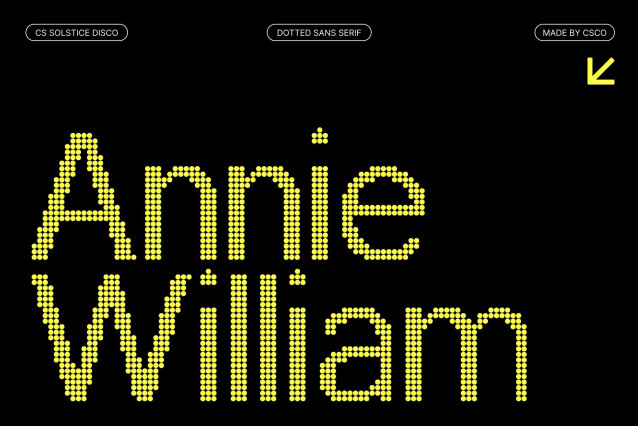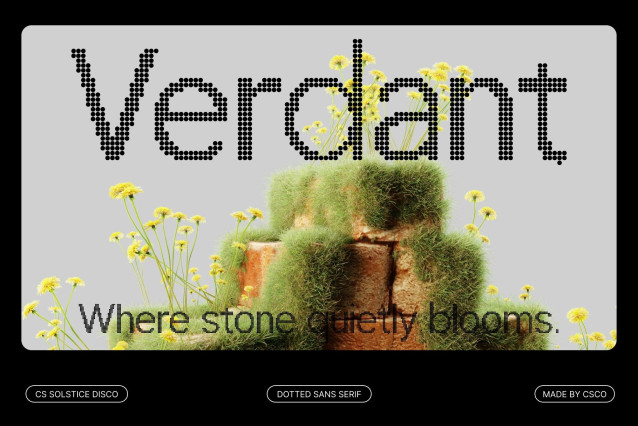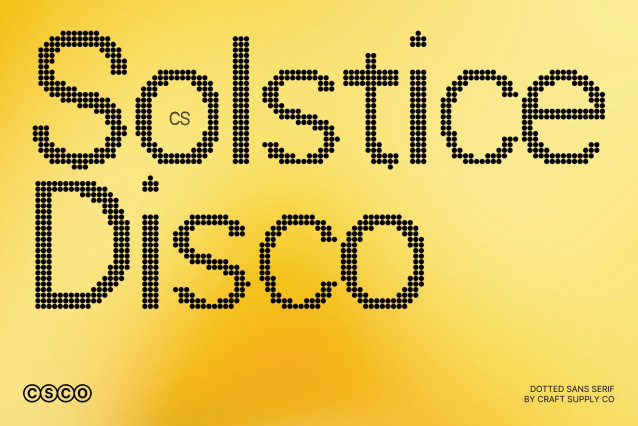
CS Solstice Disco – Dot Sans Serif with Confident Party Energy
Clean Geometry Meets Disco Sparkle
This font transforms the confident clarity of a modern sans serif into a lively dot-style display font. Built from structured geometric forms and reimagined with rhythmic dotted construction, it reflects the energy, glamour, and sparkle of a vibrant dance floor.
Structured Simplicity with Playful Rhythm
The font keeps its strong proportions and balanced shapes, but replaces solid strokes with a grid of evenly spaced dots. This approach preserves legibility while adding a festive, illuminated look that feels dynamic and joyful. The dotted texture introduces movement and rhythm, turning minimalism into celebration.
Cheerful Presence with Bold Personality
Inspired by disco lights and retro party culture, each letter radiates positivity and excitement. The dotted style mimics glowing bulbs and shimmering reflections, creating typography that feels lively, upbeat, and full of personality.